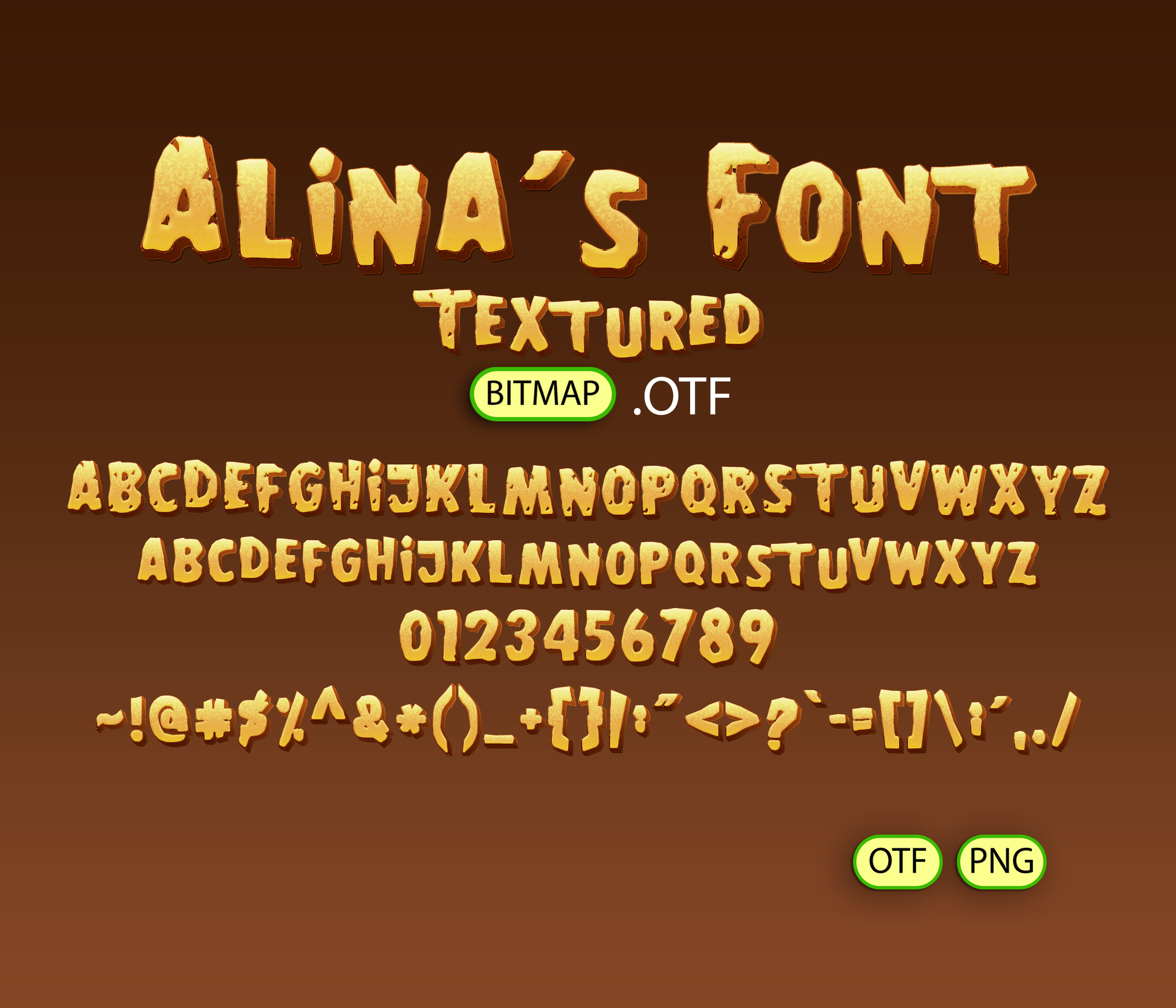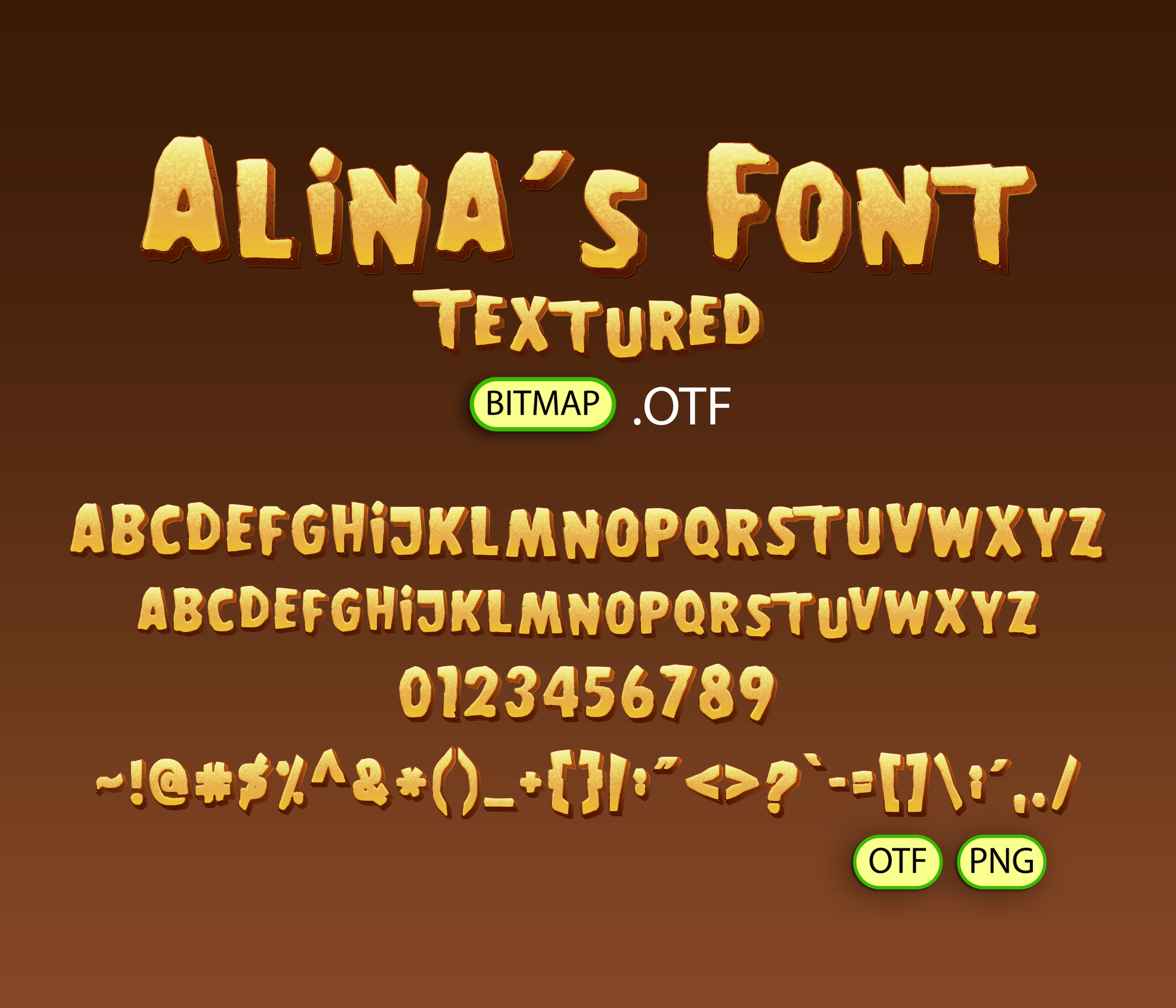
Caveman Comics Font Textured Bundle
Caveman Comics Stone Age Font Textured
Step into the whimsical world of a beloved classic that brings the Stone Age to life with its unique charm and humor. Our prehistoric-inspired font captures the essence of this iconic cartoon, characterized by its Stone Age themes and playful, rugged aesthetic. Each character in this font reflects the quirky, fun-loving nature of a prehistoric family and their ancient community, making it perfect for projects that aim to evoke the nostalgia and timeless appeal of this animated series.
What font is the Caveman Comics font?
Envision a typeface that perfectly encapsulates the cartoon's Stone Age setting and its comic style. Our Caveman Comics font is designed to mirror the show's distinctive look, with a focus on bold, rocky letterforms that are reminiscent of the era's rudimentary tools and cave dwellings. It includes an extensive character set, featuring alphabets, numbers, and special symbols, offering a comprehensive solution for various design projects, from themed party invitations to retro merchandise.
What You Can Do With Caveman Comics Textured Font?
The Caveman Comics font is versatile and ideal for a range of creative applications:
- Themed Event Invitations: Create unique and playful invitations for prehistoric-themed parties or retro cartoon events.
- Children's Merchandise Design: Perfect for designing apparel, toys, and accessories that capture Stone Age charm.
- Digital Content and Social Media: Use the font to add a touch of prehistoric fun to websites, blogs, and social media posts.
- Educational Materials: Incorporate the font into teaching resources for history or animation-themed lessons.
- Greeting Cards and Stationery: Design personalized stationery or greeting cards with a Stone Age theme.
- Promotional Materials: Use in advertising campaigns for family-friendly products or events.
- Interior Decor: Create wall art, decals, or signage for children's rooms, play areas, or themed restaurants.
- Event Signage: Develop eye-catching signs and banners for cartoon-themed events or conventions.
- Book and Magazine Design: Use in publications focusing on animation, family entertainment, or retro pop culture.
- Creative Art Projects: Ideal for crafting, scrapbooking, and artistic projects inspired by prehistoric cartoons.
Feature Highlights and Bonuses
- Textured and Non-Textured Variants: Each font is available in both a playful, Stone Age-inspired style and a clean, non-textured version for diverse design needs.
The Caveman Comics font is more than just a typeface; it's an homage to the classic cartoon that has delighted generations.